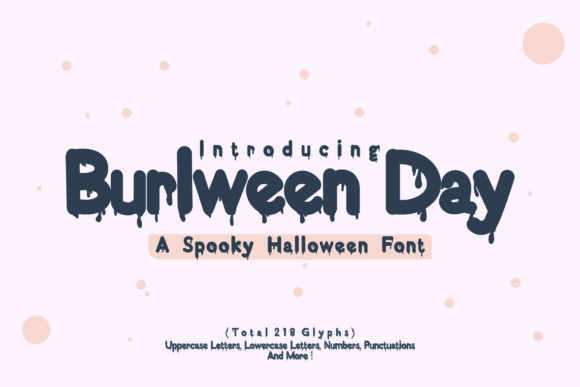
Unleash the Spooky Charm of Burlween Day: Your Ultimate Halloween Font
As a designer, I’ve had my fair share of thrilling projects, but one that still sends shivers down my spine is a Halloween party invitation I worked on a few years ago. The client wanted something that would make their guests feel like they were stepping into a haunted mansion, and I was determined to deliver. However, as I scrolled through font after font, I just couldn’t find the right fit. That was until I stumbled upon Burlween Day, a font that has since become my go-to for all things spooky and spectacular.
What Makes Burlween Day So Special?
Burlween Day is more than just a font – it’s an experience. With its impressive count of 218 glyphs, this eerie yet charming font is perfect for any October-themed project. Whether you’re designing Halloween party invites, haunting web graphics, or simply looking to add a touch of suspense and drama to your work, Burlween Day has got you covered.
So, what do I love about Burlween Day? Here are a few highlights:
- ✨ Eerie yet elegant: Burlween Day strikes the perfect balance between spooky and sophisticated, making it ideal for a wide range of projects.
- ✅ Extensive glyph library: With 218 glyphs at your disposal, you can get creative with your designs and experiment with different combinations.
- 🔍 Attention to detail: Each character in Burlween Day has been meticulously crafted, with every stroke promising to breathe life and an unmatched aesthetic into your projects.
Of course, no font is perfect, and Burlween Day does come with a few minor quirks:
- 🤔 Some characters may require adjusting: Depending on your design, you might need to tweak certain characters to get the perfect spacing and alignment.
- ⚠️ Not suitable for body text: Due to its ornate nature, Burlween Day is best used for headings, titles, and short paragraphs.
The Backstory Behind Burlween Day
The story goes that Burlween Day was inspired by the old, mysterious mansions that dot the countryside. The font’s creator wanted to capture the essence of these haunted abodes and bring it to life in a font that would make designers swoon. And swoon we did!
| Font Name | Burlween Day Font |
| Author | emprit.graphic |
| What makes Burlween Day perfect for Halloween designs? | Burlween Day’s eerie yet elegant design, combined with its extensive glyph library, makes it an ideal choice for creating spooky and spectacular Halloween designs. |